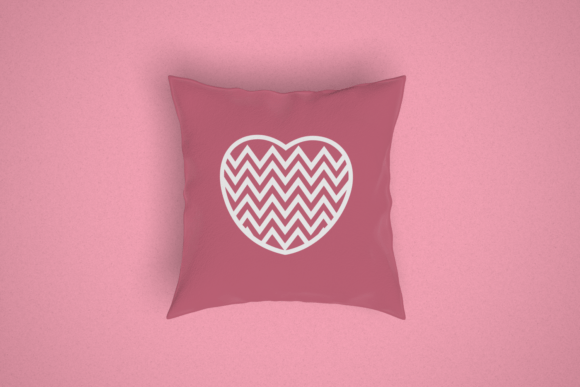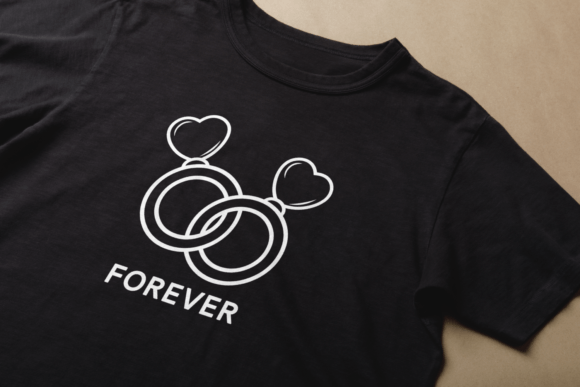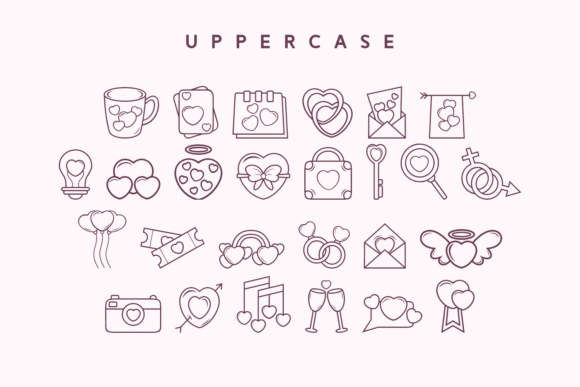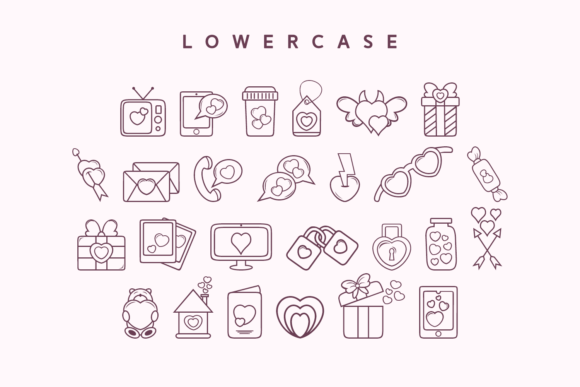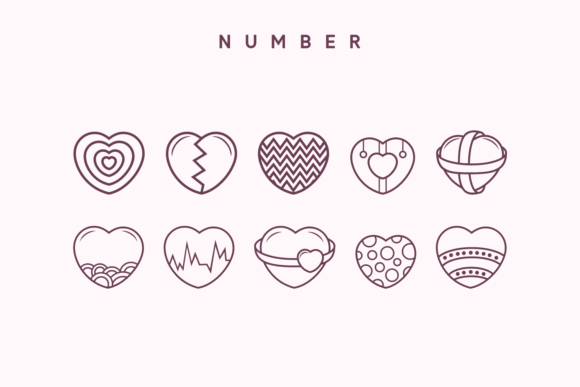
Introduction to Lovena Font
Have you ever stared at a blank canvas, searching for the perfect design element to bring your creative vision to life? For many of us, this moment is a familiar and nerve-wracking experience. But what if we told you there’s a way to add a dash of warmth and personality to your designs with just a few clicks?
Enter Lovena Font, a delightful design resource that’s sure to capture your heart. This charming font is packed with whimsical symbols adorned with hearts, making it the perfect choice for anyone looking to infuse their work with a bit of heartfelt charm. With its transparent background and high-quality design, Lovena Font is a versatile tool that’s perfect for a wide range of creative projects, from romantic invitations to playful social media graphics.
Key Features of Lovena Font
- High-quality, professional font design perfect for creative projects and personal use.
- Features a transparent background, allowing for easy layering and customization in your design.
- Designed to be versatile and adaptable, Lovena Font is ideal for a variety of design projects, from branding to publishing.
Honest Review: Lovena Font
As a designer, I’m always on the lookout for high-quality design resources that can elevate my creative projects. Recently, I had the chance to try out the Lovena Font, and I’m excited to share my honest review with you.
What works well: ✨ The Lovena Font is incredibly versatile, with a range of weights and styles that make it perfect for a variety of design projects. I was particularly impressed with its use of whitespace and clean lines, which gives it a modern and sophisticated feel.
Some notable features include:
- High-quality font that’s perfect for body text and headings
- Transparent background, making it easy to use on any design surface
Limitations: ⚠️ While the Lovena Font is an excellent choice for many design projects, I did find it to be a bit lacking in terms of character sets. If you need to use non-English characters or symbols, you may need to look elsewhere.
Overall, I’m really impressed with the Lovena Font. Its high-quality design and versatility make it a great choice for any creative project. Just be aware of its limitations when it comes to character sets.
Tips for Getting the Most Out of Lovena Font
The Lovena Font is ideal for use in creative projects such as logos, brochures, and social media graphics. Its high quality design makes it perfect for use in business and marketing materials.
Is the Lovena Font suitable for designs with a transparent background?
Yes, the Lovena Font has a transparent background, making it perfect for designs that require a subtle and elegant touch. The font’s transparent background allows it to blend seamlessly with any background color or image, giving you more creative freedom in your design project.